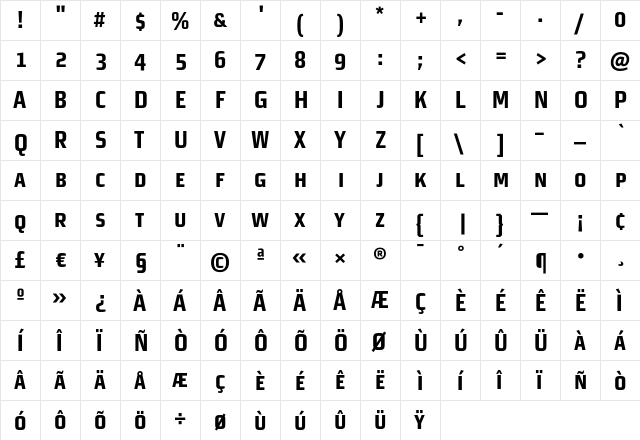
MorganSansCond BoldExpert
Design Context for MorganSansCond Typeface
MorganSansCond takes a measured approach to typography — its balanced proportions and neutral character make it a reliable workhorse for both digital and print work. Its bold stroke weight gives it real presence on the page. Its narrow stance lets it pack a punch even in space-constrained designs.